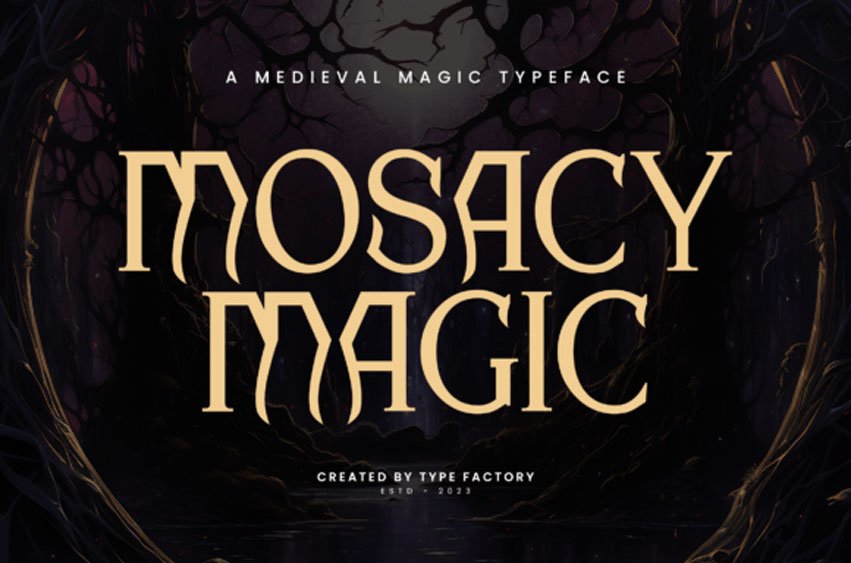
Mosacy Magic Font Immerse yourself in the allure of antiquity with Mosacy Magic, a mesmeric medieval typeface etched in mystic vibes effortlessly married with the conspicuous splendor of ye olden times.
Its artfully elaborate letterforms make it an ideal fit for picturesque fantasy book jackets, capturing the essence of game designs, or infusing a mystic persona to your brand identity. Mosacy Magic adds a dash of enchanting historical exuberance to your projects, invoking the age-old charm of majestic castles, legendary tales, and fantastical realms. This typeface swirls a whiff of ancient mysticism into any print or digital creation, delivering a timeless, ethereal character.